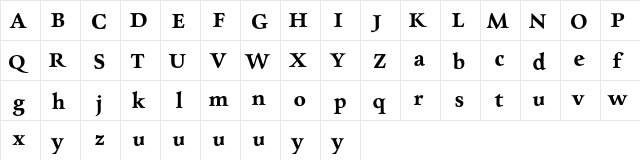
Charpentier Renaissance Pro Demi
| Designer | Ingo Zimmermann |
Design Context for Charpentier Renaissance Pro Typeface
Charpentier Renaissance Pro takes a measured approach to typography — its balanced proportions and neutral character make it a reliable workhorse for both digital and print work.